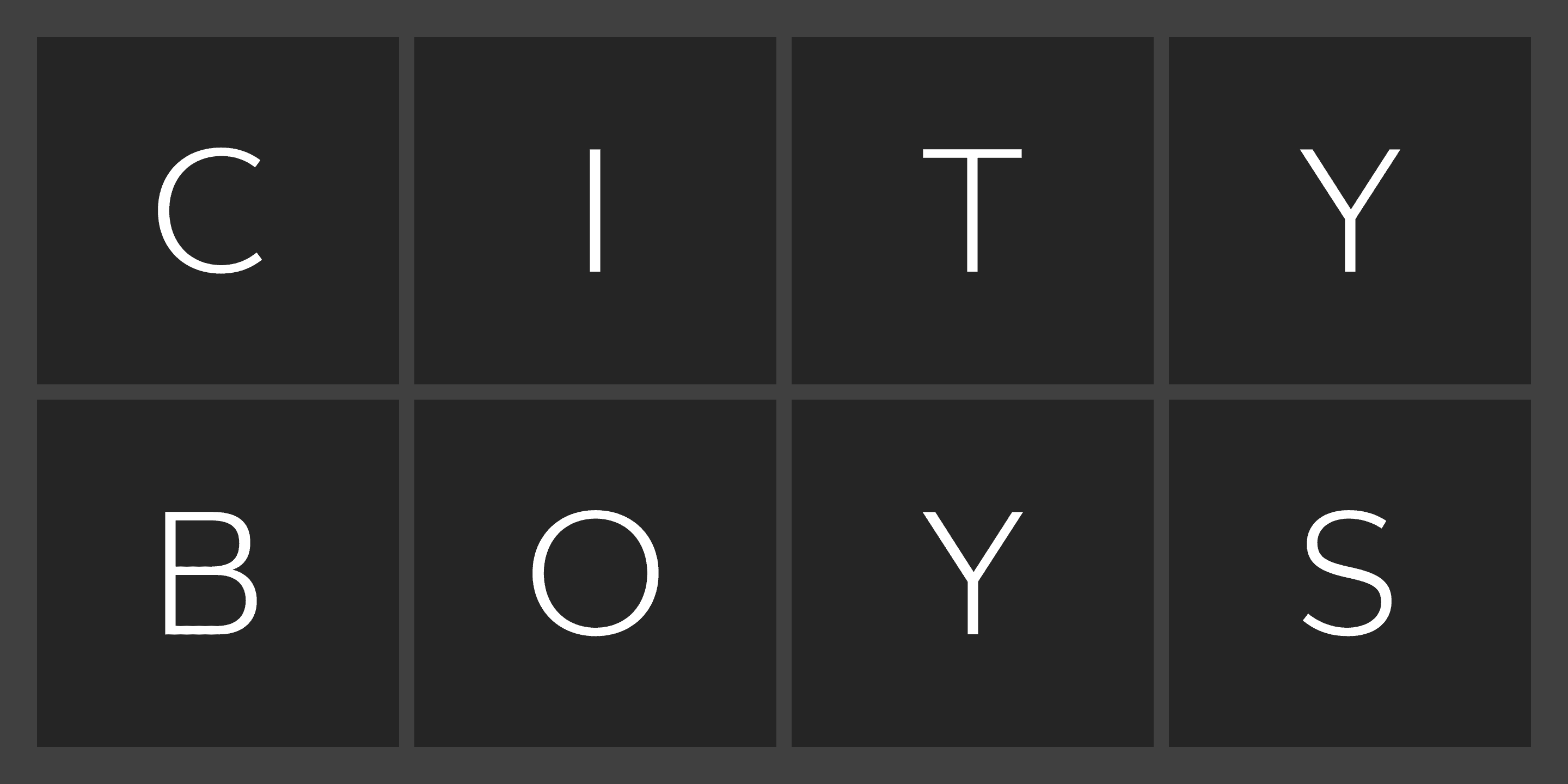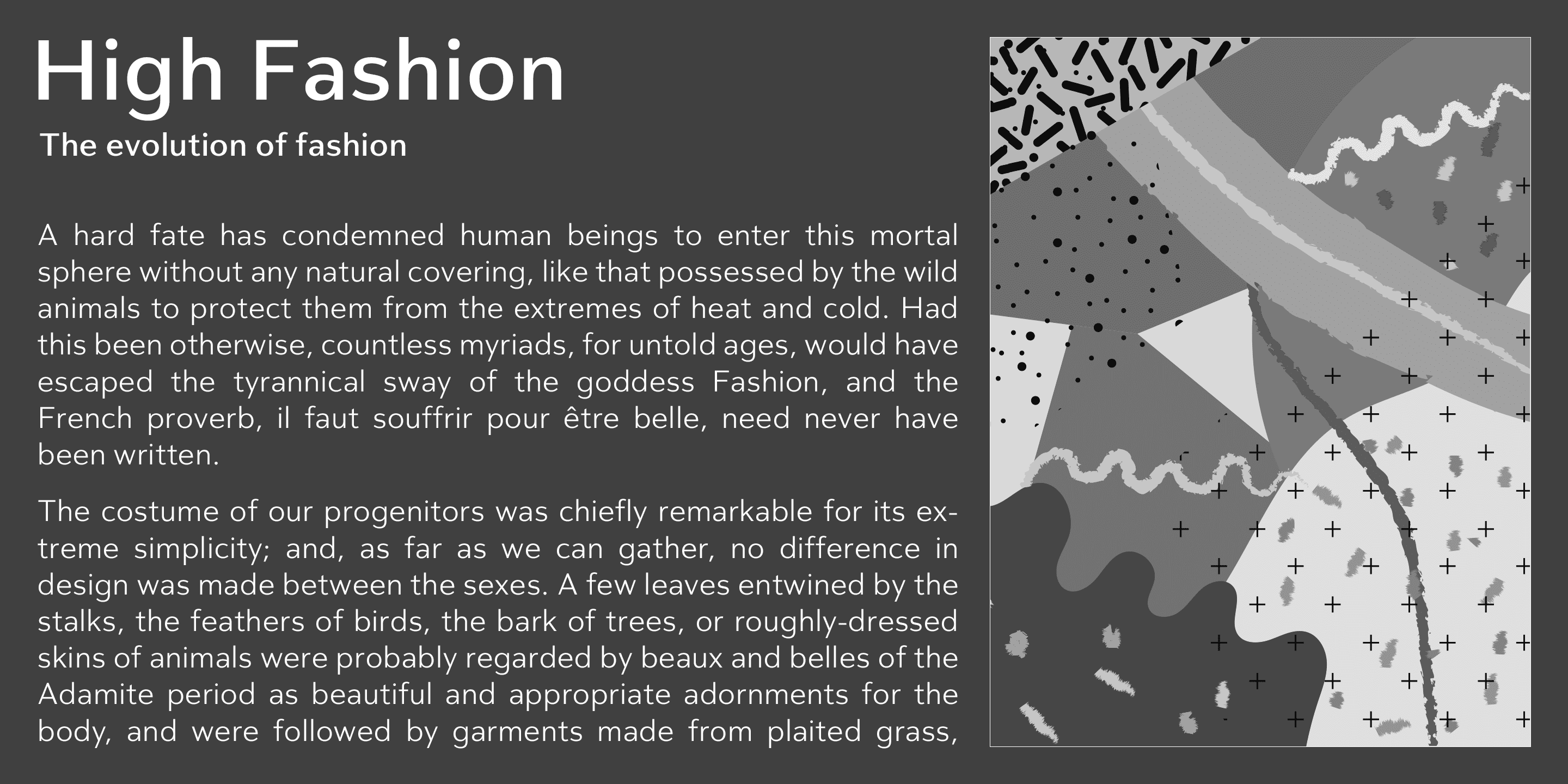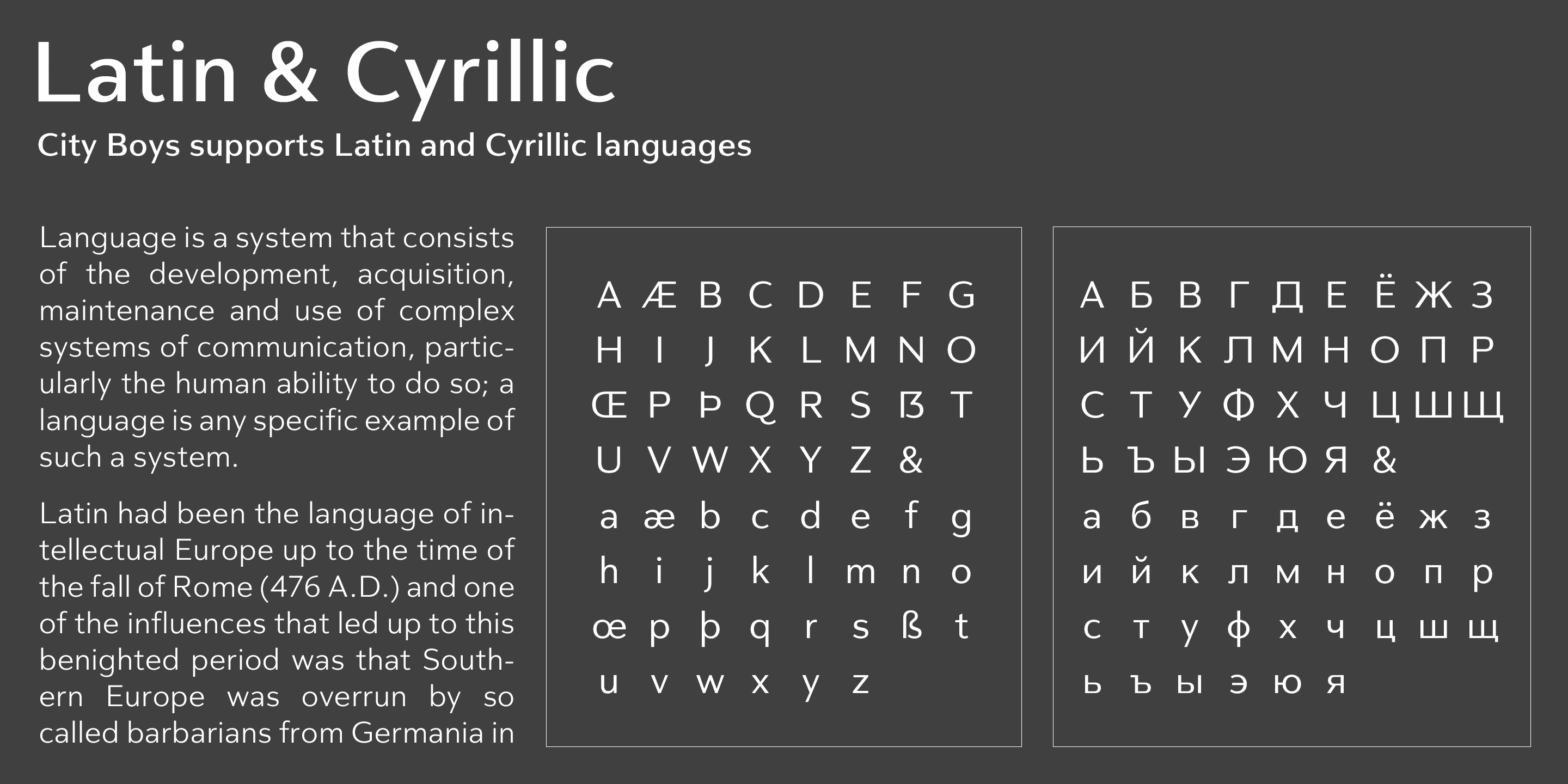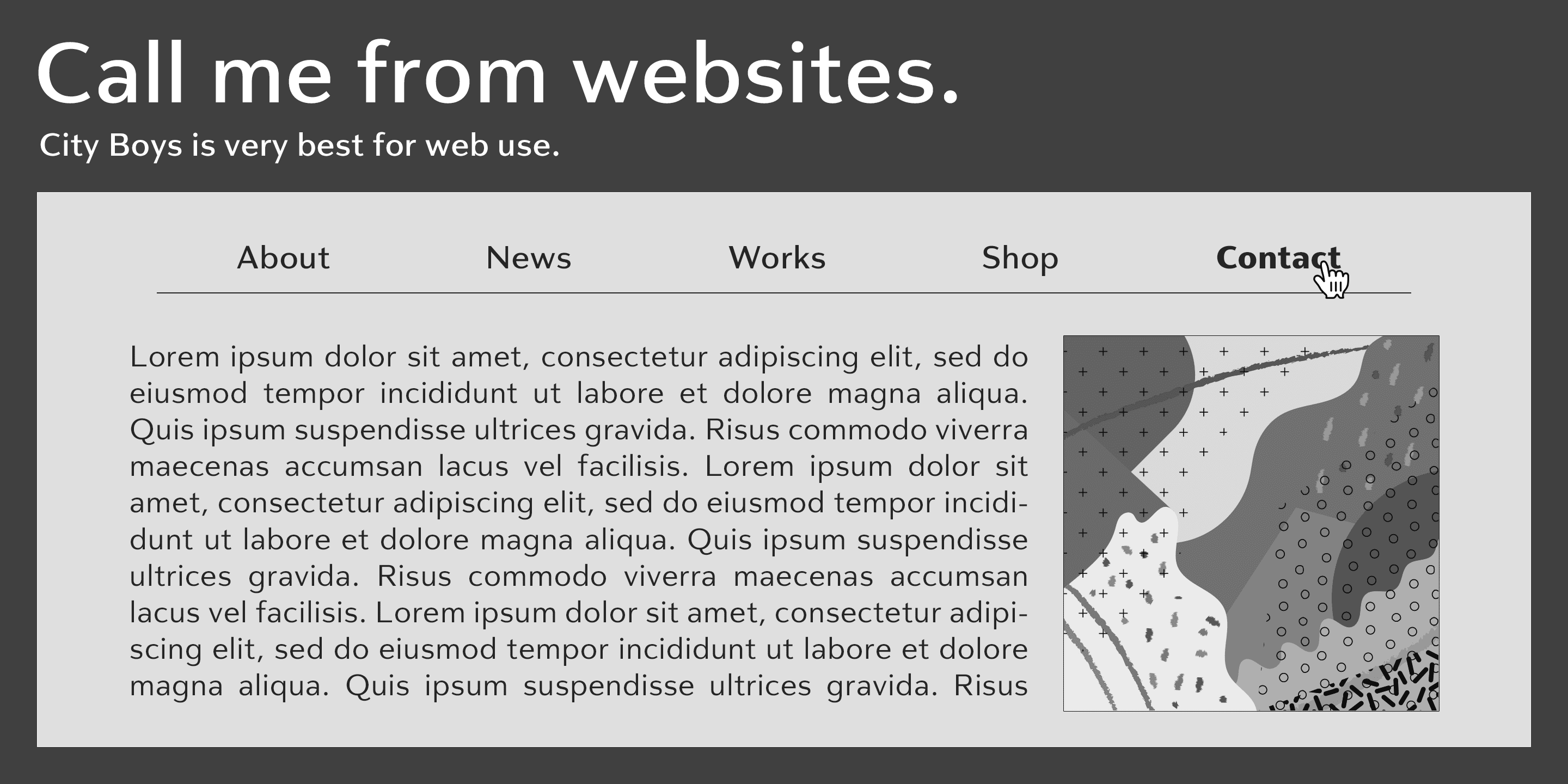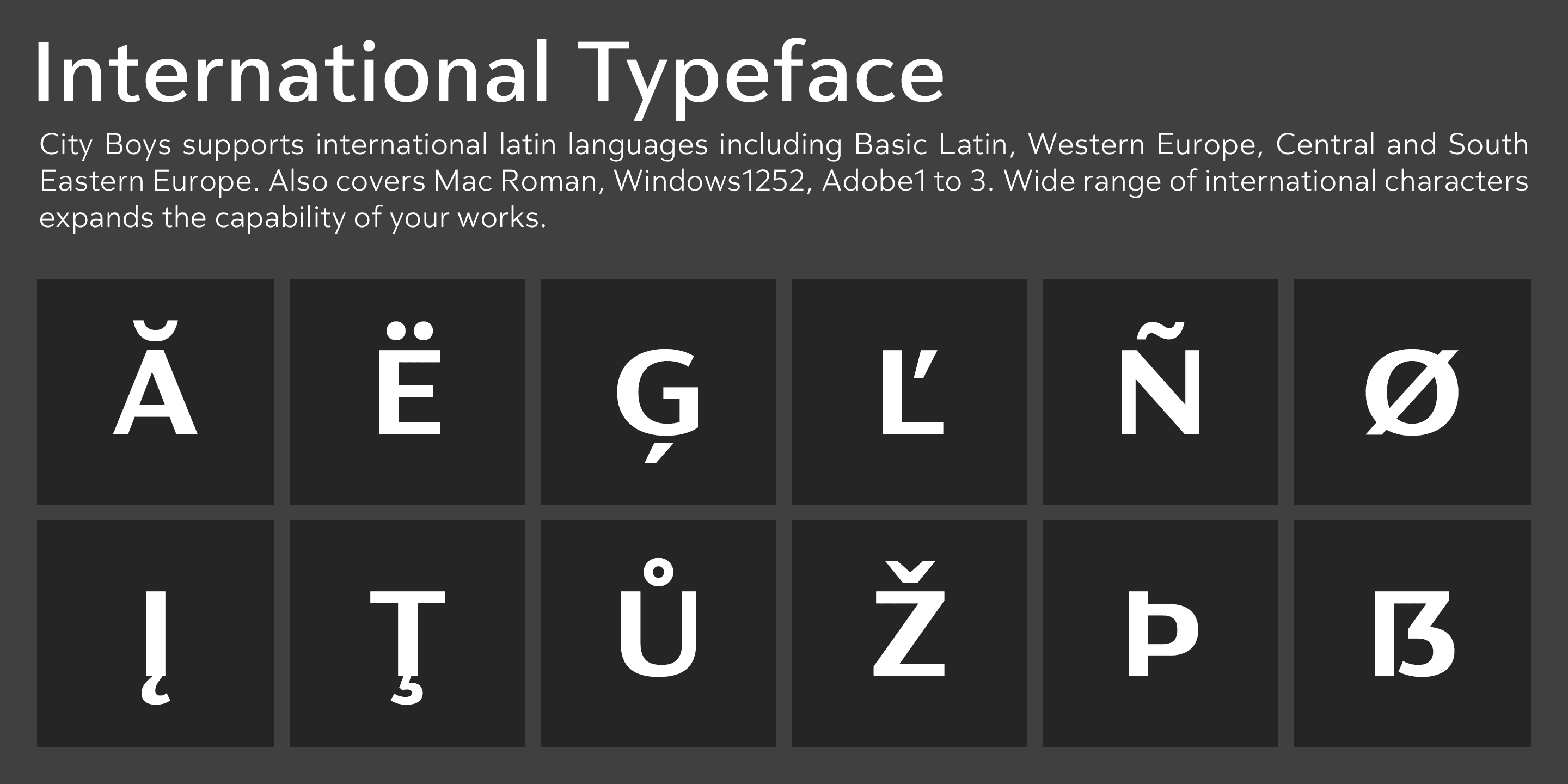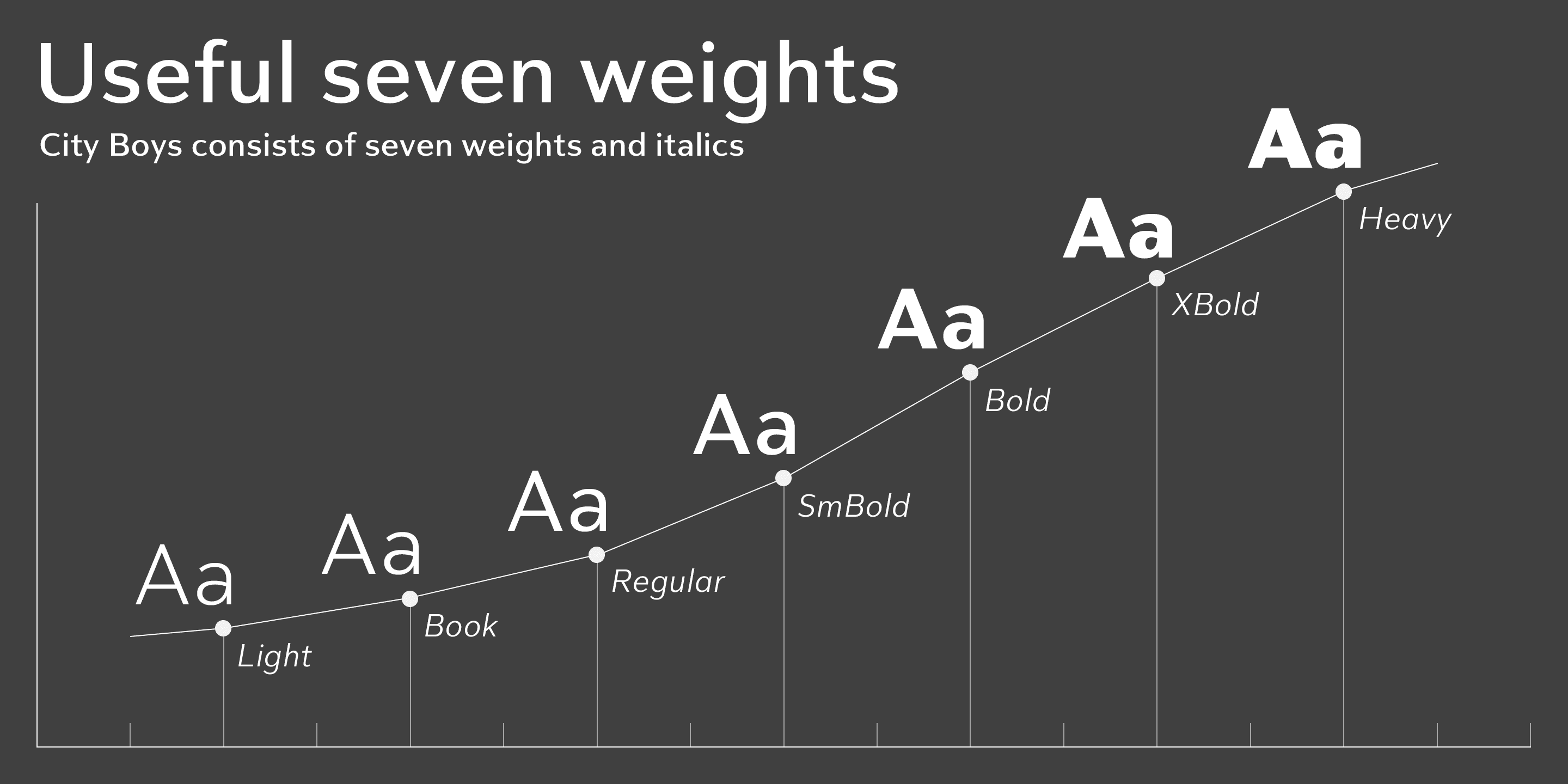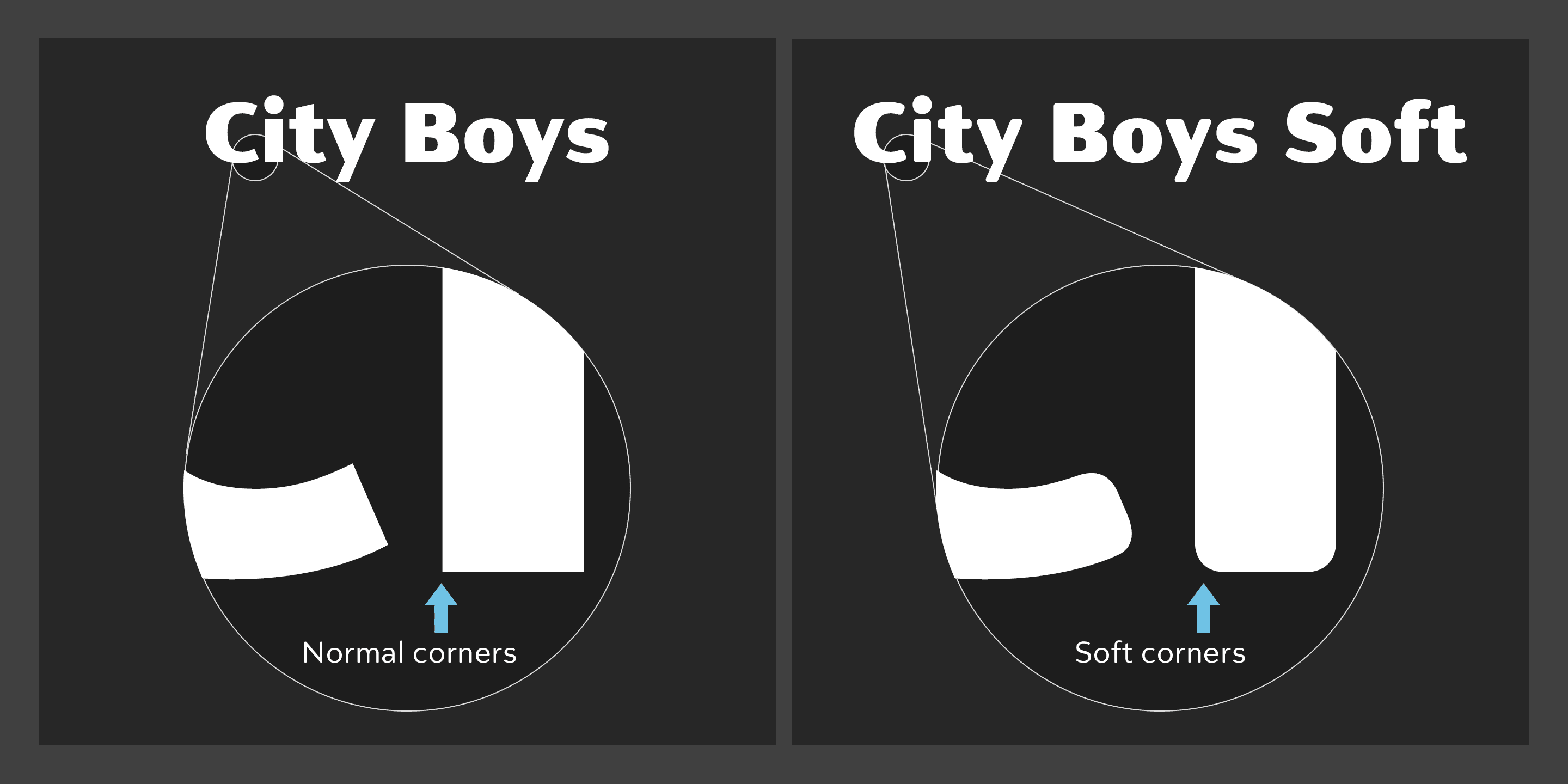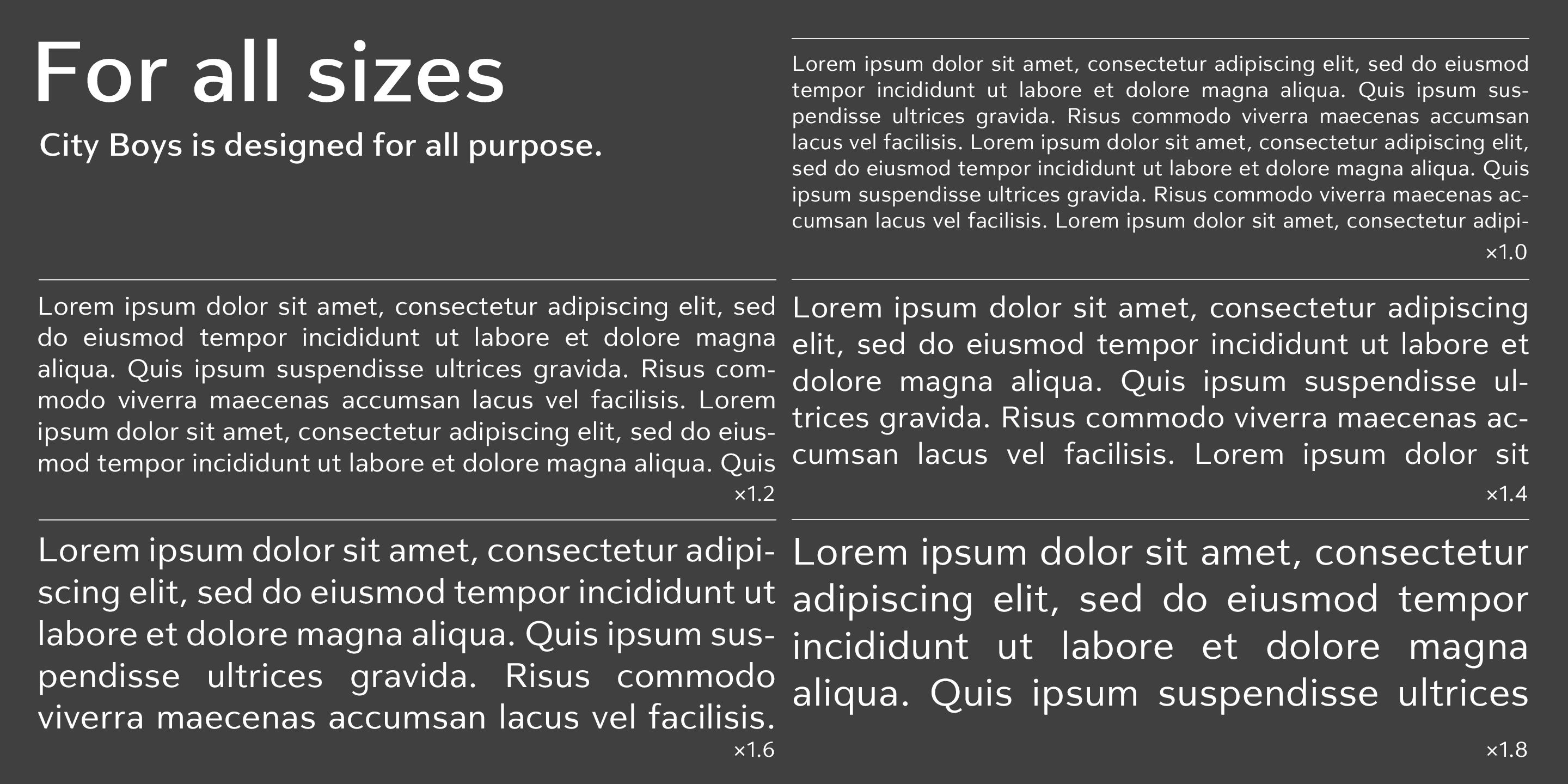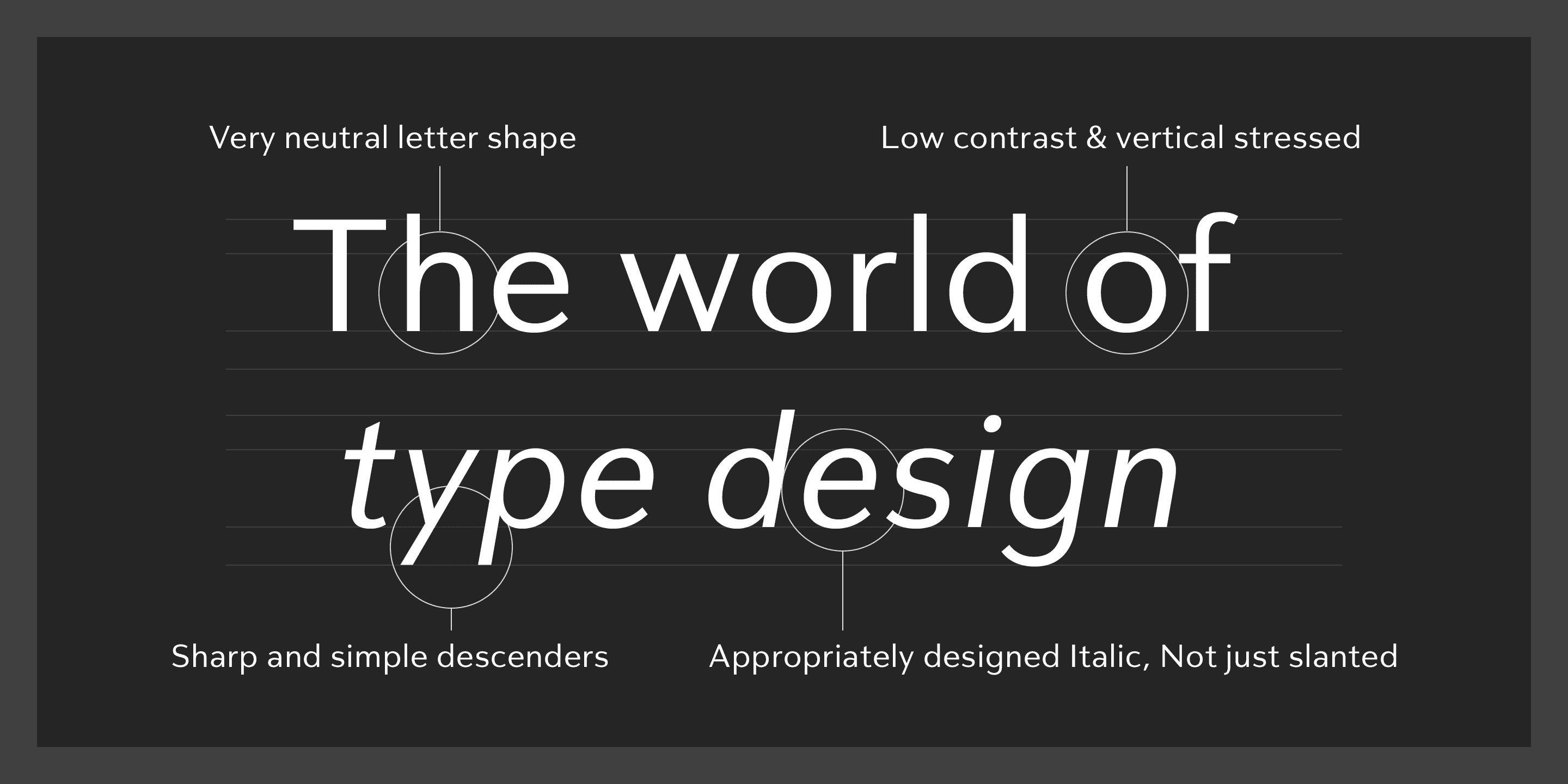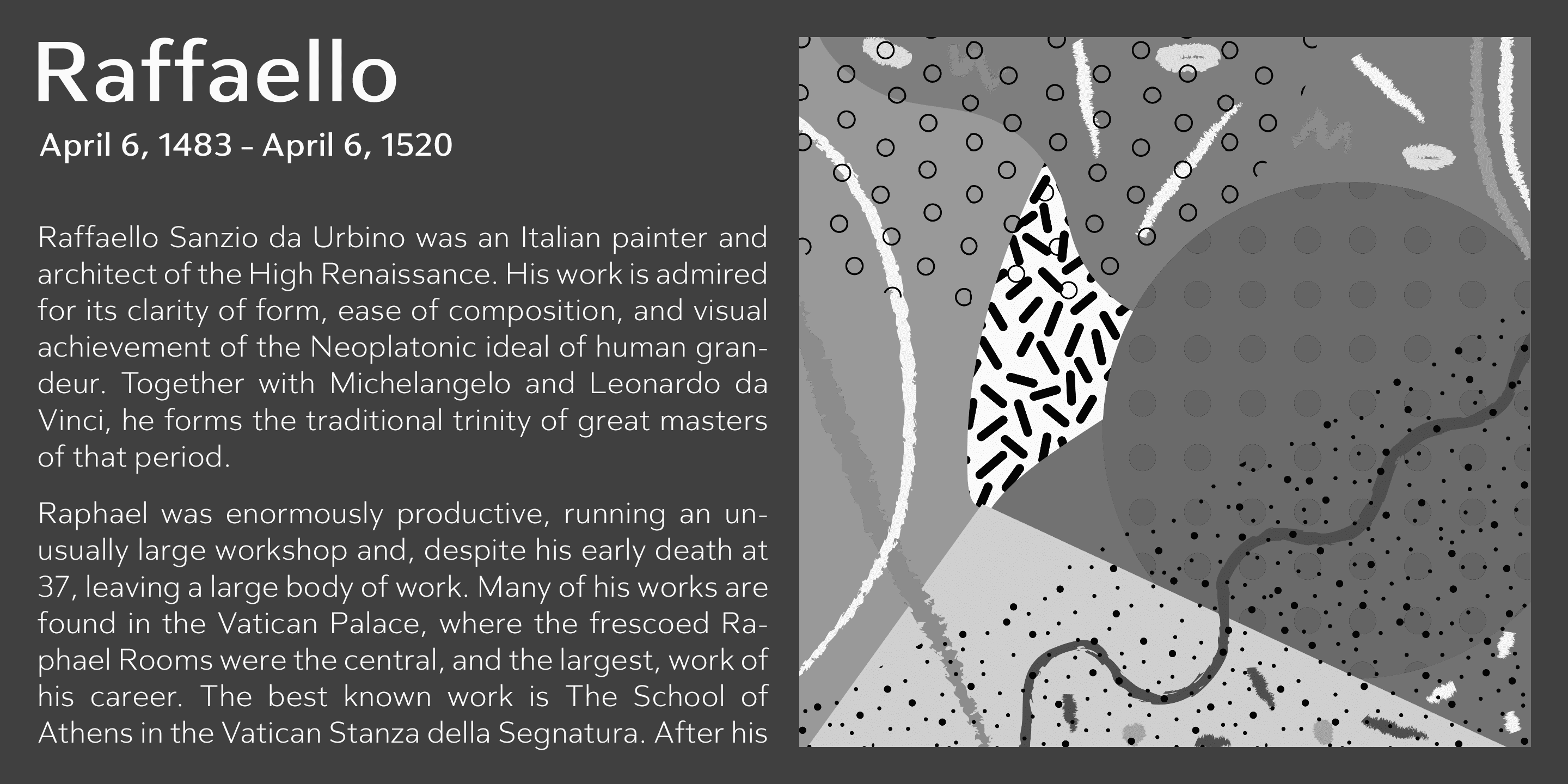
City Boys Family (14 fonts)
City Boys has basic, natural and neutral letterforms and skeletons for a wide range of usage. The glyphs are somewhat humanist yet they have vertical stress for modern and sophisticated impression. The ratio of the contrast was carefully designed for modern usage –websites, digital, printings and merchandises.
City Boys consists of 7 weights and their matching Italics for a wide range of usages. Farther, City Boys is supporting international Latin languages and basic Cyrillic languages including Basic Latin, Western Europe, Central and South-Eastern Europe. Also CSS covers Mac Roman, Windows1252, Adobe1 to 3. This wide range of international characters expands the capability of your works.